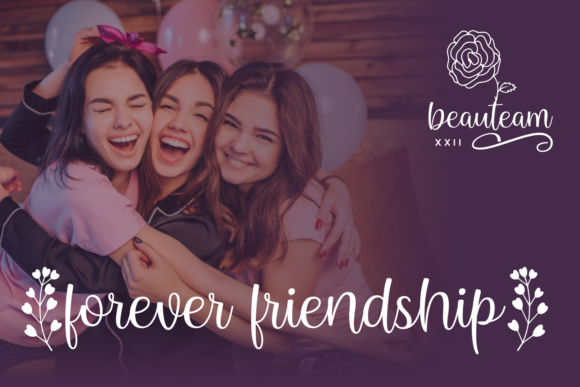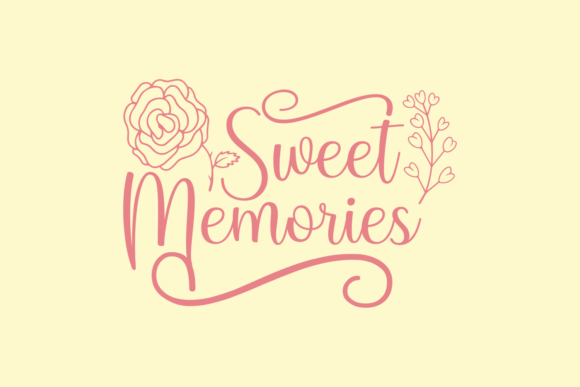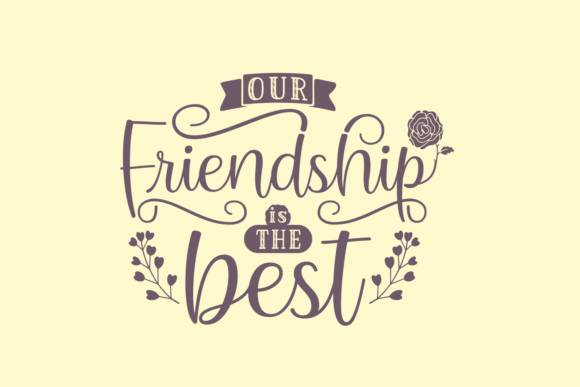
Building Friendship Font
About Building Friendship Font
Building Friendship is an elegant and flowing handwritten font that exudes a sense of grace and beauty. With its smooth and well-balanced characters, this font is perfect for a wide range of design projects. Whether you’re working on logos, stationery art, quotes, book covers, magazines, branding, or any other creative endeavor, Building Friendship will add a touch of sophistication and uniqueness to your designs.
The flowing nature of the font’s letterforms gives it a sense of elegance and fluidity. Each character is carefully crafted, resulting in a harmonious and visually pleasing appearance. The balanced proportions and consistent stroke weight make the font highly legible and versatile for various design applications.
Building Friendship is particularly well-suited for projects that require a touch of warmth and personal connection. The handwritten style adds a sense of authenticity and friendliness, making it a great choice for designs focused on building relationships, such as social media graphics, greeting cards, and invitations. The elegant yet approachable nature of the font creates a sense of trust and familiarity, allowing you to effectively convey your message to your audience.
Whether you’re designing a logo for a brand that values personal connections, creating a beautiful stationery set for a special event, or designing a captivating book cover, Building Friendship will make your projects stand out. Its versatility and elegance make it a reliable choice for a wide range of design needs.
In summary, Building Friendship is an elegant and flowing handwritten font that brings a sense of grace and beauty to your designs. Its well-balanced characters and smooth letterforms make it suitable for logos, stationery art, quotes, book covers, magazines, branding, and more. With Building Friendship, you can create unique and captivating designs that leave a lasting impression.